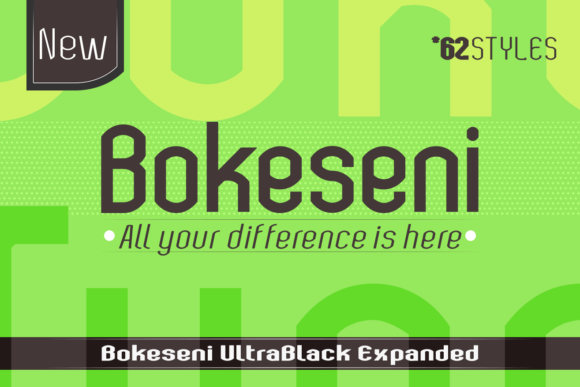
Bokeseni UltraBlack Expanded Font: Elevate Your Designs with Bold Sophistication
In the realm of typography, a font can make or break a design. For designers and crafters seeking to make a statement, Bokeseni UltraBlack Expanded is a game-changer. This masterfully designed sans serif font boasts a unique blend of boldness and sophistication, making it an indispensable asset for any creative project.
The Power of Bokeseni UltraBlack Expanded
Bokeseni UltraBlack Expanded looks bold, yet sophisticated, and features chunky and extended characters that will look particularly adept when used in logos, branding, packaging design, and much more. The font’s extended width and ultra-black weight create a striking visual impact, making it perfect for headlines, titles, and any design element that demands attention.
The versatility of Bokeseni UltraBlack Expanded is one of its most significant advantages. This font can be used in a wide range of design applications, including:
- Logo Design: Create a lasting impression with a bold, eye-catching logo that showcases your brand’s personality.
- Branding: Establish a strong visual identity with Bokeseni UltraBlack Expanded’s unique character set.
- Packaging Design: Make your product stand out on store shelves with a font that’s both attention-grabbing and sophisticated.
- Advertising: Use Bokeseni UltraBlack Expanded to create compelling ad copy that demands attention.
Why Choose Bokeseni UltraBlack Expanded?
With so many fonts available, why choose Bokeseni UltraBlack Expanded? Here are just a few reasons:
- Unique Character Set: Bokeseni UltraBlack Expanded features a distinctive character set that’s both bold and elegant.
- High-Quality Design: This font is meticulously crafted to ensure optimal legibility and aesthetics.
- Versatility: Use Bokeseni UltraBlack Expanded in a variety of design applications, from digital projects to print materials.
- Easy to Read: Despite its bold and extended design, Bokeseni UltraBlack Expanded remains highly legible, even at smaller sizes.
Tips for Using Bokeseni UltraBlack Expanded
To get the most out of Bokeseni UltraBlack Expanded, consider the following tips:
- Pair with a contrasting font: Combine Bokeseni UltraBlack Expanded with a lighter, more delicate font to create visual interest.
- Experiment with colors: Try pairing Bokeseni UltraBlack Expanded with bold, bright colors to create a striking visual effect.
- Use for headlines and titles: Bokeseni UltraBlack Expanded is perfect for headlines and titles, where its bold and extended design can shine.
In conclusion, Bokeseni UltraBlack Expanded is a must-have font for designers and crafters seeking to elevate their designs with bold sophistication. Its unique character set, high-quality design, and versatility make it an indispensable asset for any creative project. Whether you’re designing a logo, branding materials, or packaging, Bokeseni UltraBlack Expanded is the perfect choice.